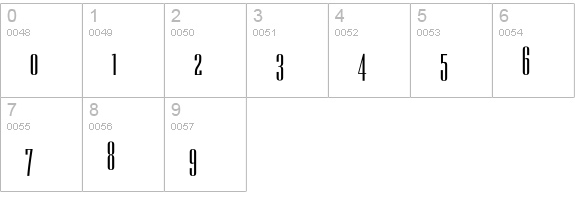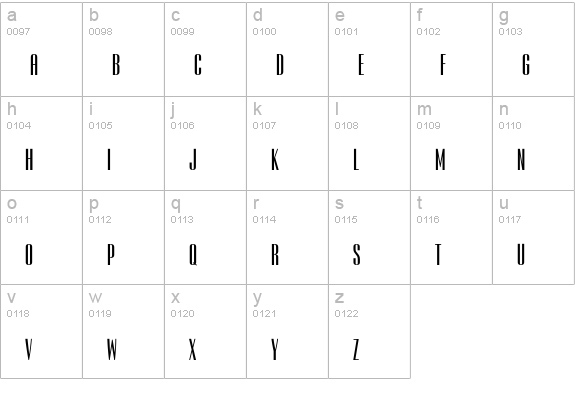
Empire-BoldSmallCaps Font Details
Empire-BoldSmallCaps is a bold and sophisticated font that exudes elegance and professionalism. Its small caps style adds a touch of uniqueness to any design, making it stand out from the crowd. With its strong and commanding presence, Empire-BoldSmallCaps is perfect for headlines, logos, and branding materials. The best part? Empire-BoldSmallCaps is available for free download at FontsMarket.com. This means you can easily access this stylish font without any cost, making it a valuable addition to your font collection. Don't miss out on the opportunity to elevate your designs with Empire-BoldSmallCaps - download it today and make a bold statement with your typography.